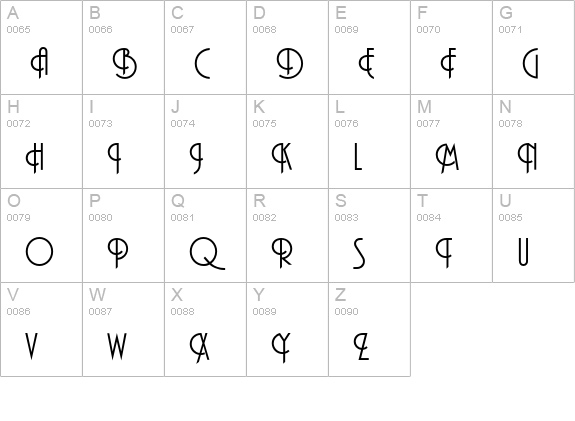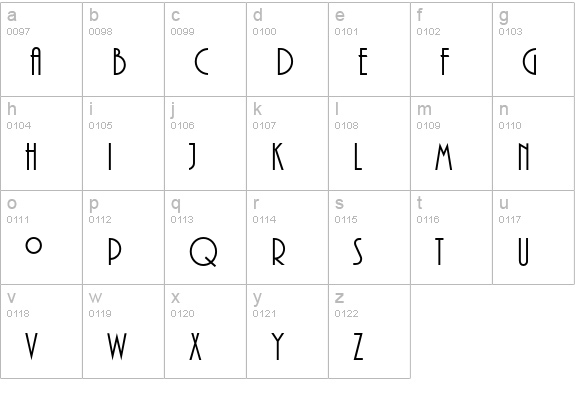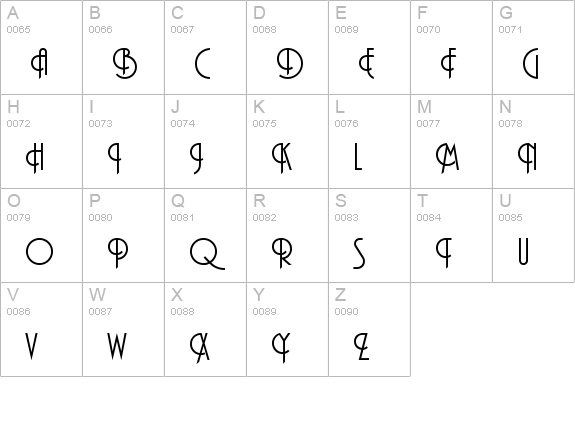
PlazaEF-Regular Font Details
PlazaEF-Regular is the standard, neutral variant in the PlazaEF typeface family \xE2\x80\x94 well suited to general body text, paragraphs, and standard typographic work.
PlazaEF-Regular is a versatile and modern font that strikes the perfect balance between elegance and readability. This typeface features clean lines and a contemporary design that makes it ideal for a wide range of projects, from branding to editorial design. With its sleek and sophisticated appearance, PlazaEF-Regular adds a touch of sophistication to any text. What's even better is that PlazaEF-Regular is available for free download at FontsMarket.com. This means you can easily access and use this stunning font in your projects without any cost. Whether you're working on a personal project or a professional design, PlazaEF-Regular is a perfect choice for adding a touch of style and sophistication to your work. Download it today and elevate your designs with this beautiful and free font.